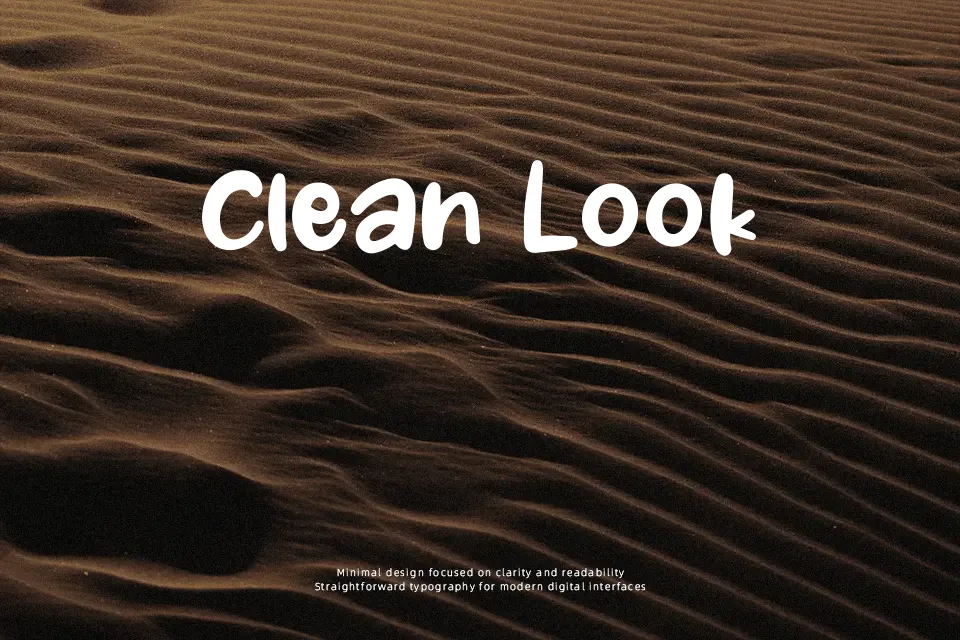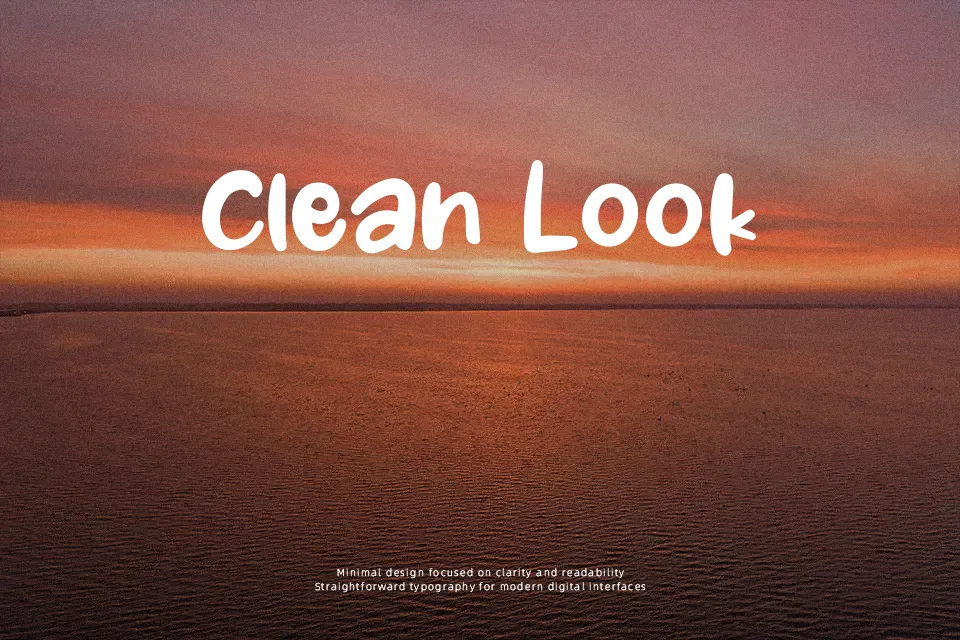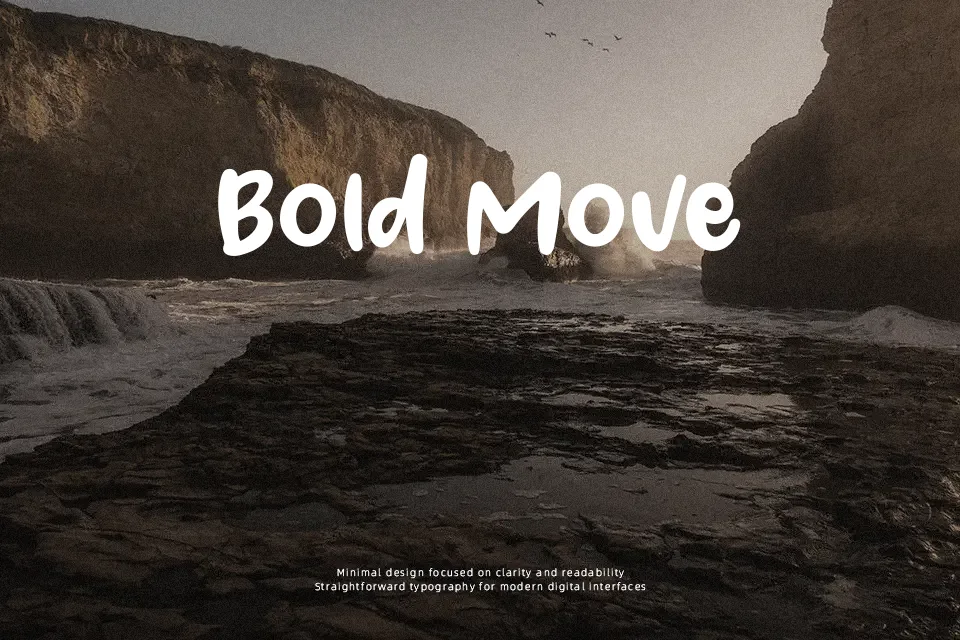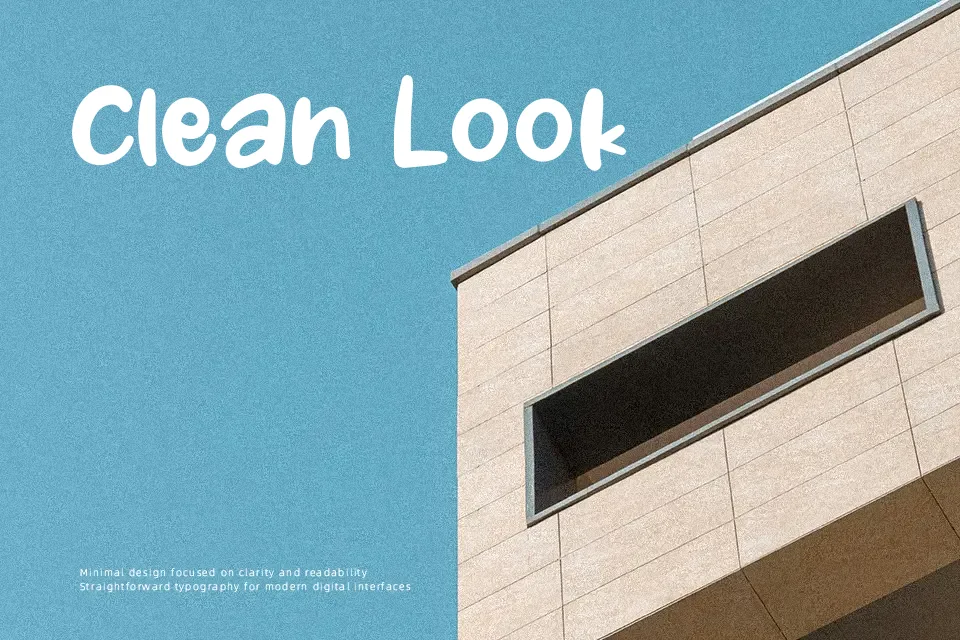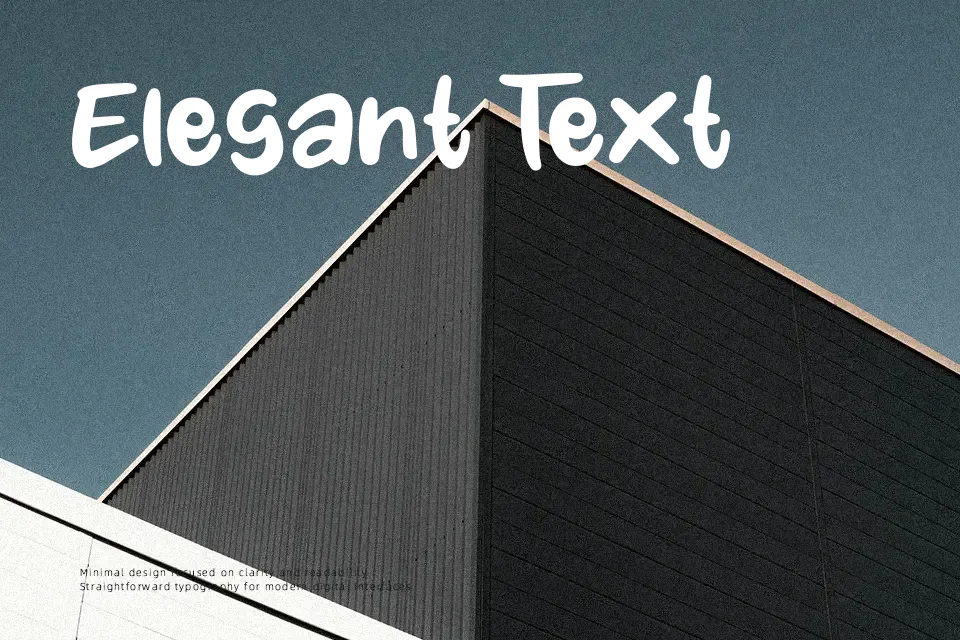
Panipuri Font
Designed by Khurasan™
Panipuri Font uses hefty, rounded shapes with soft, bulb-like curves and uneven details that give the alphabet a hand-drawn cartoon presence. The strokes appear broadly uniform rather than sharply contrasted, while the generous proportions make individual letters stand out in short words. Spacing feels suited to display settings, where the forms have room to breathe and the visual rhythm remains clear. It works well for cheerful headlines, snack labels, and kid-focused artwork. The bold forms maintain visibility in large compositions, though their decorative character becomes less practical in small captions and continuous reading.
Best For: children’s poster headlines,snack packaging,restaurant menu headers,playful social graphics